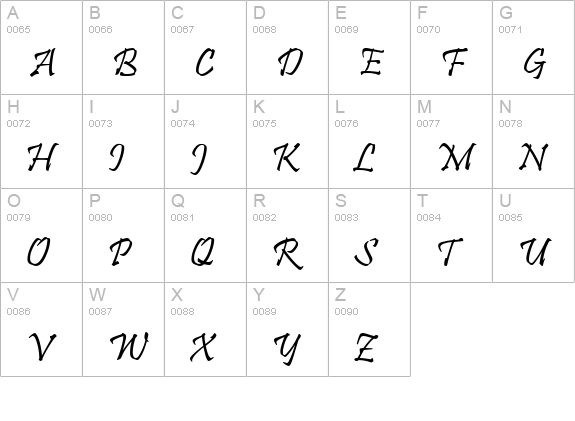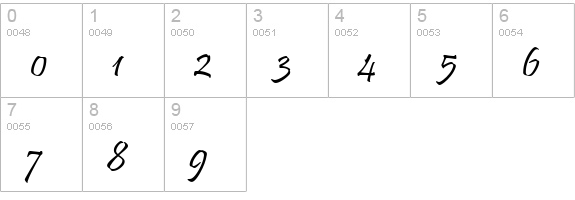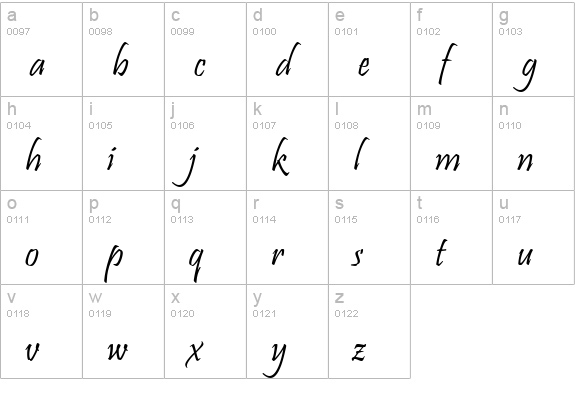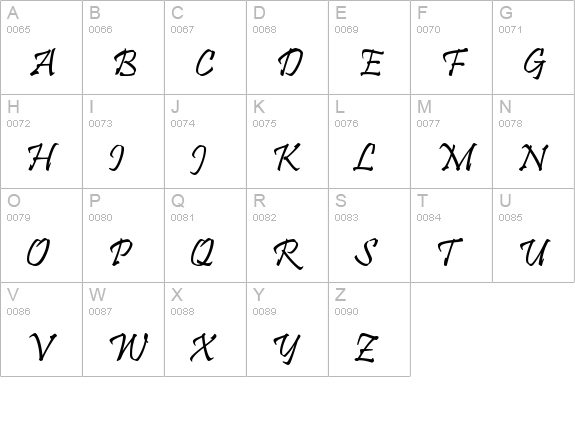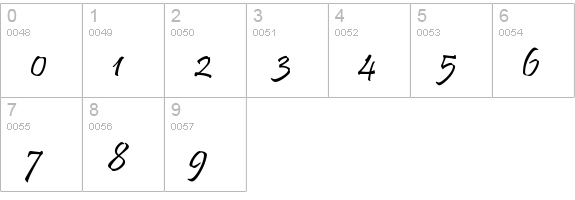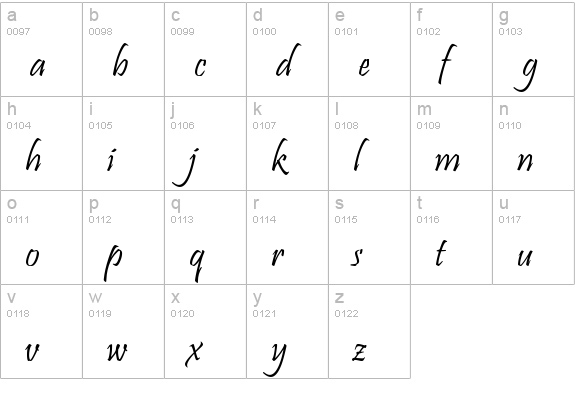
Pristina Font Details
Introducing Pristina font, a stunning and elegant typeface that exudes sophistication and charm. Its delicate curves and graceful strokes make it perfect for adding a touch of luxury to any project. Whether you're designing a wedding invitation, a branding project, or a romantic quote, Pristina font will elevate your designs to new heights. What sets Pristina font apart is not only its timeless beauty but also the fact that it is completely free to download. Yes, you read that right - this exquisite font is available for free at FontsMarket.com. So, don't miss out on the opportunity to enhance your creations with the exquisite Pristina font. Download it today and let your creativity shine!